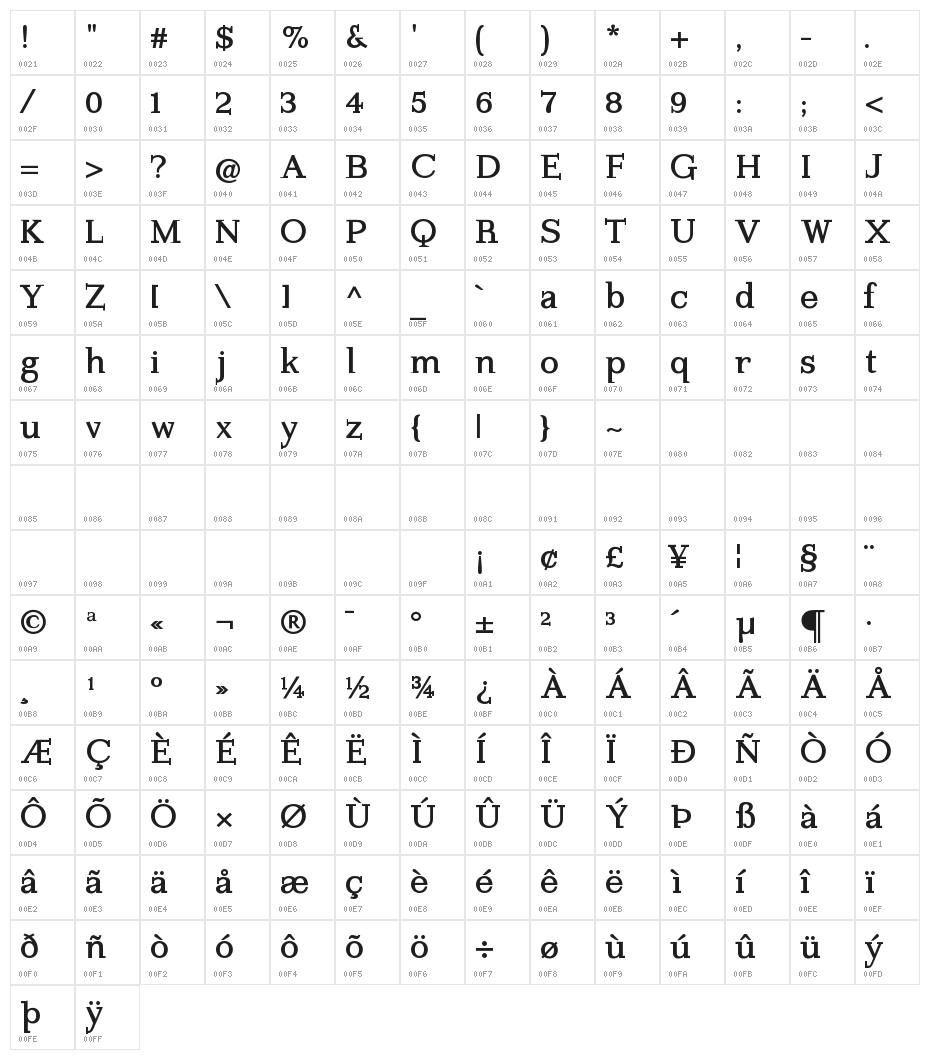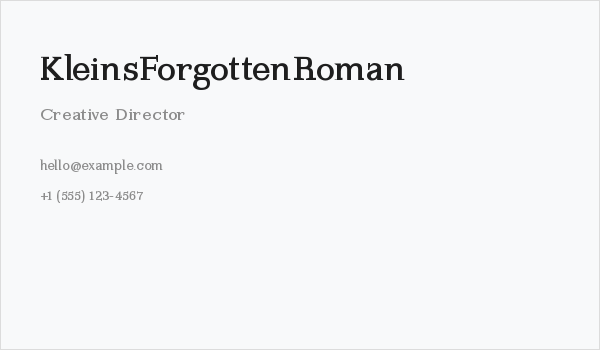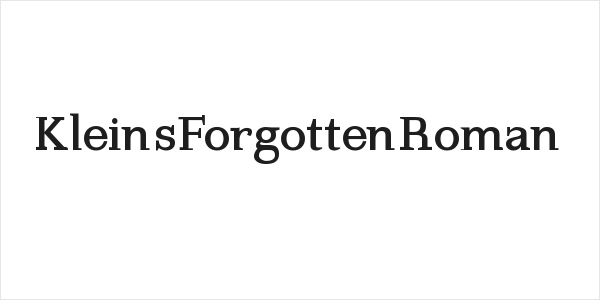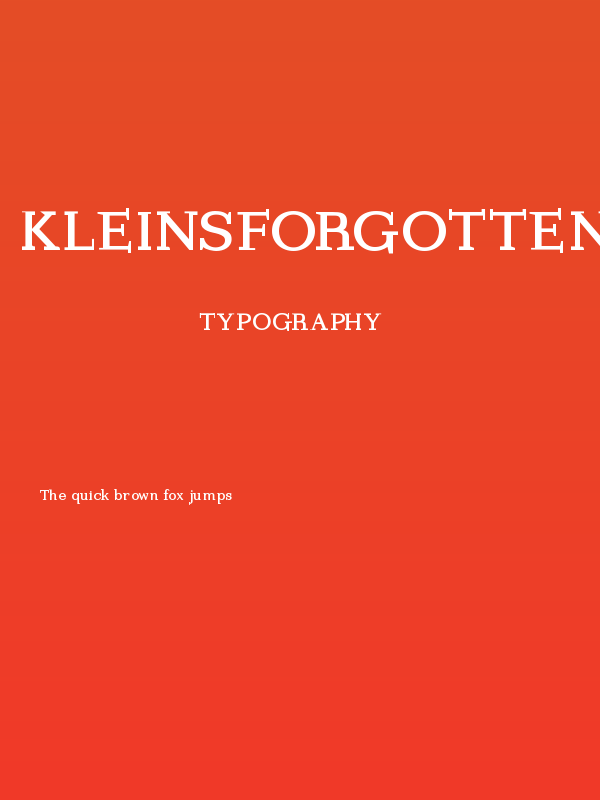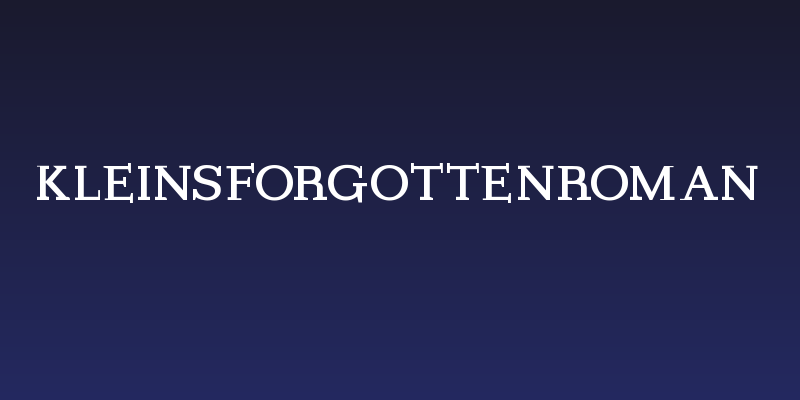
KleinsForgottenRoman Font
KleinsForgottenRoman Description
This typeface exhibits a classic serif style with a strong, authoritative presence. The characters are well-defined with sharp serifs, providing a traditional and formal appearance. The uppercase letters are bold and commanding, while the lowercase letters maintain a consistent and harmonious flow. The numerals are clear and distinct, making them easily readable. Special characters are elegantly integrated, maintaining the overall aesthetic of the font. The design is reminiscent of historical Roman typefaces, offering a sense of timelessness and sophistication.
| Proposed Projects | Ideal for use in editorial design, book covers, formal invitations, and branding projects that require a touch of elegance and tradition. |